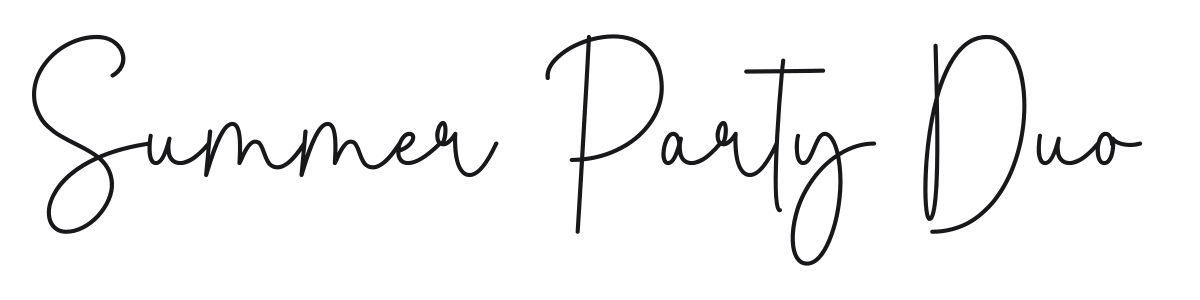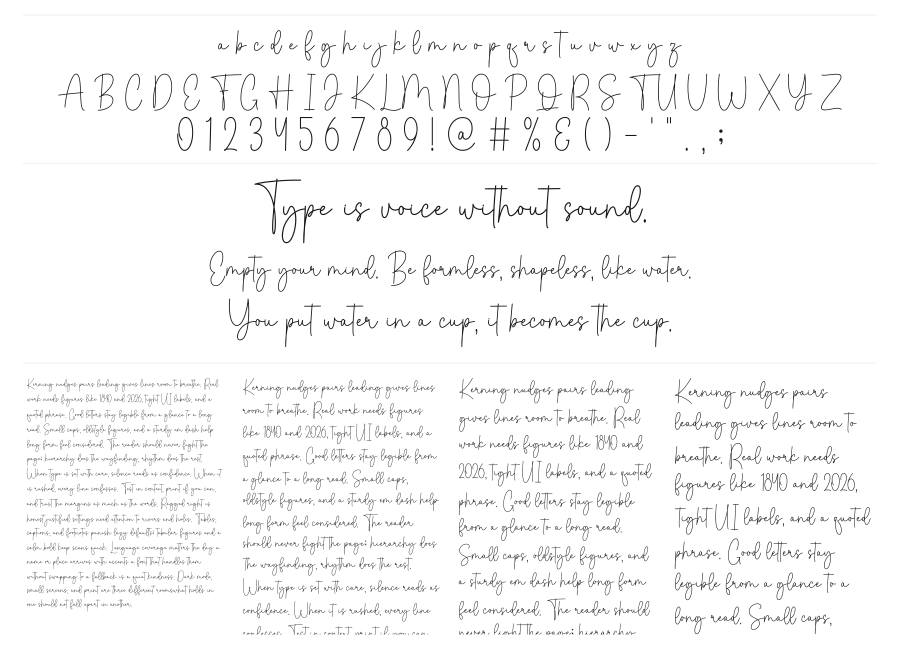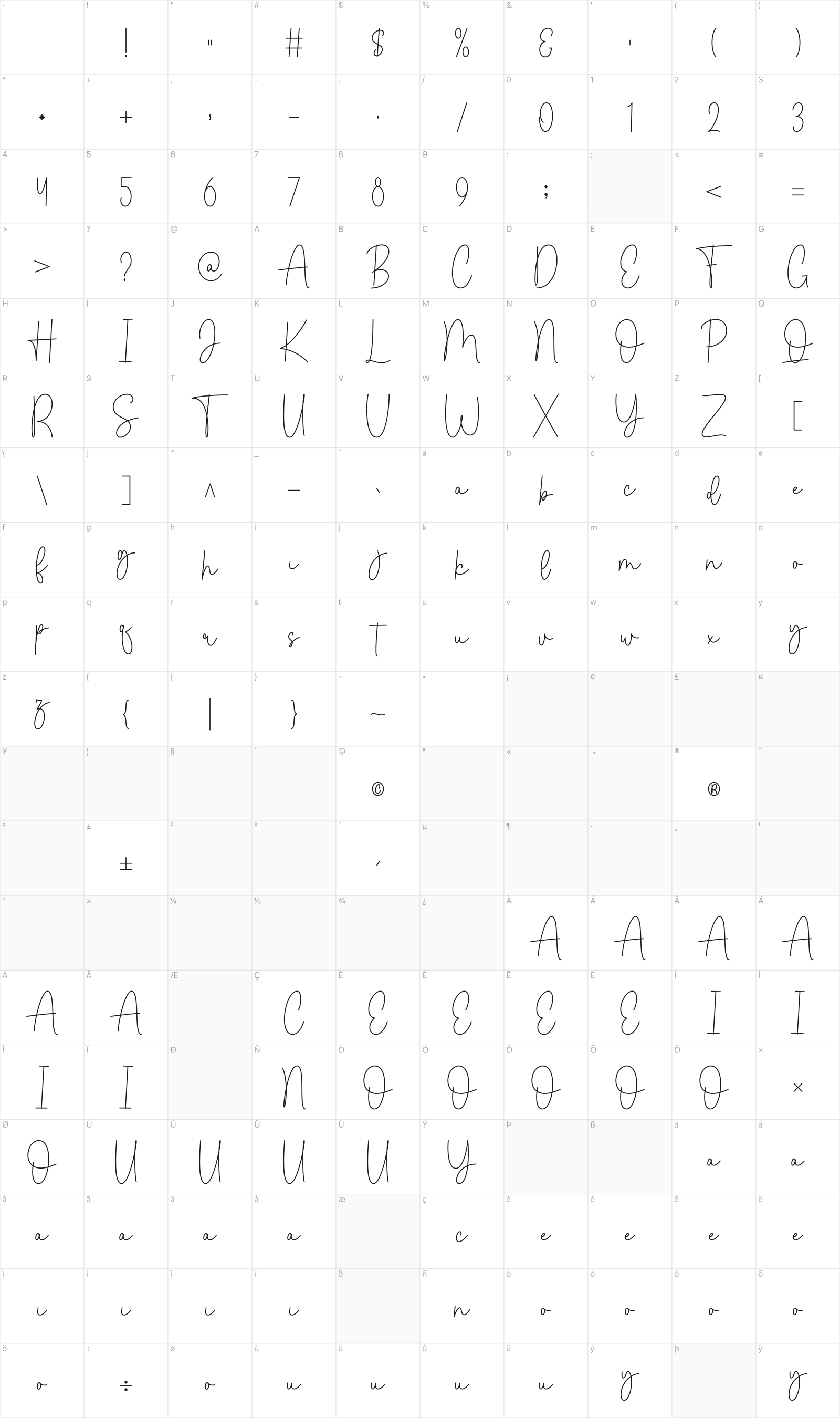
Summer Party Duo
Summer Party Duo is a thin, flowing casual script with a light, breezy hand that feels like it was written on a warm afternoon. The connected strokes move with natural rhythm, loose loops, and a gently undulating baseline that keeps things lively without tipping into formal calligraphy. It suits branding, packaging, and social graphics where a friendly, sun-soaked tone is the goal.